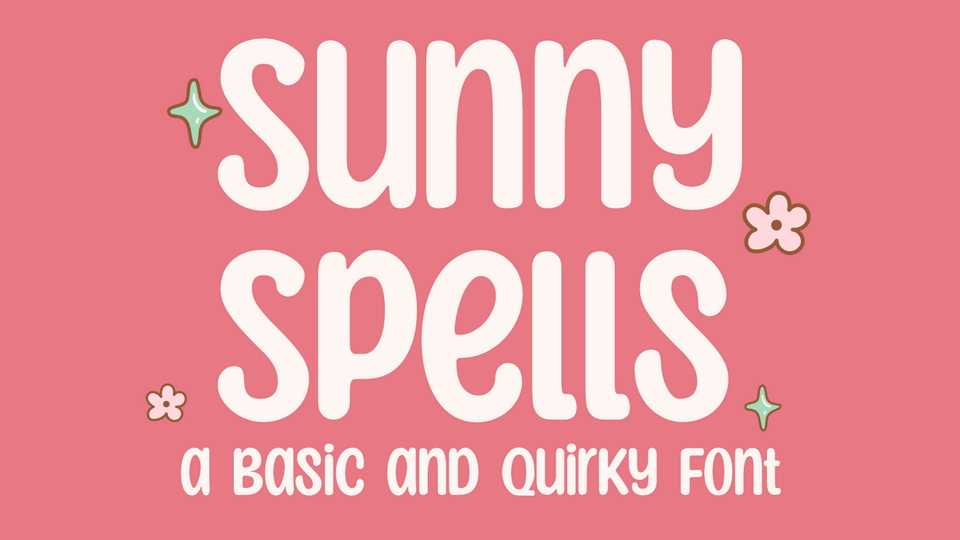
Download Sunny Spells font, a friendly, neat and simple handwritten font that you can use for all quotes or teaching material. Sunny Spells font will add a personal and realistic feel to your designs.
Designer: Niskala Huruf